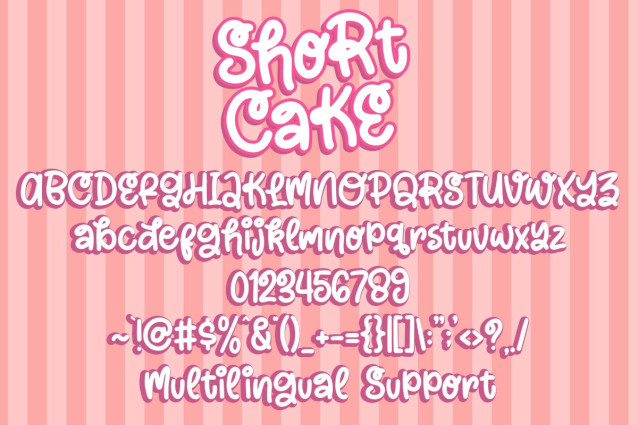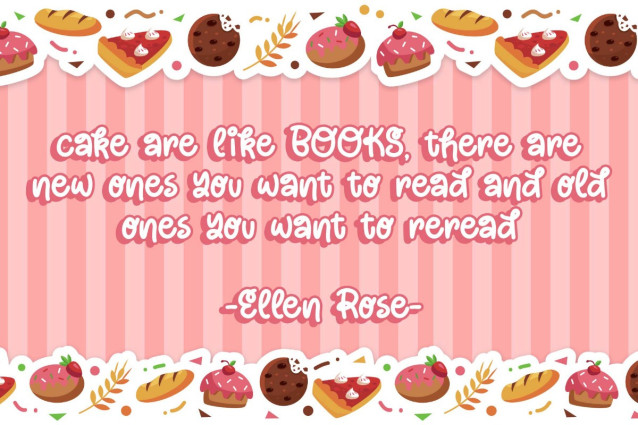
Short Cake Font
Short Cake Font is a delightful and versatile typeface that brings sweetness and charm to your designs. With its playful letterforms and unique style, this font is perfect for a variety of creative projects, including branding, invitations, posters, and more.